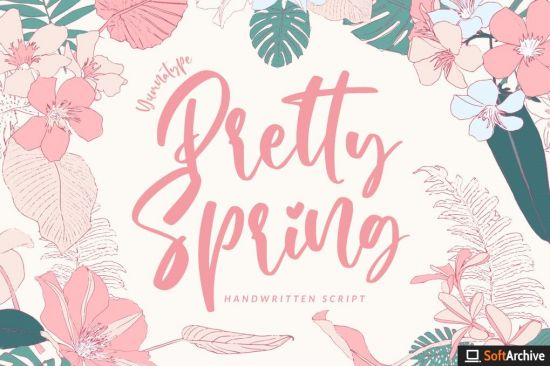
Say hello to Pretty Spring Script. Pretty Spring is a beautiful and modern script. It brings a beautiful and modern typeface that best used for weddings, branding, logotype, and quotes.